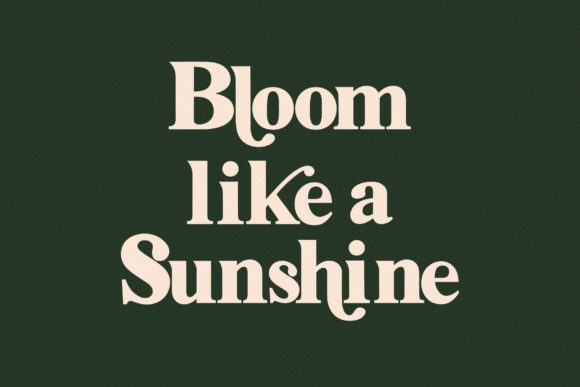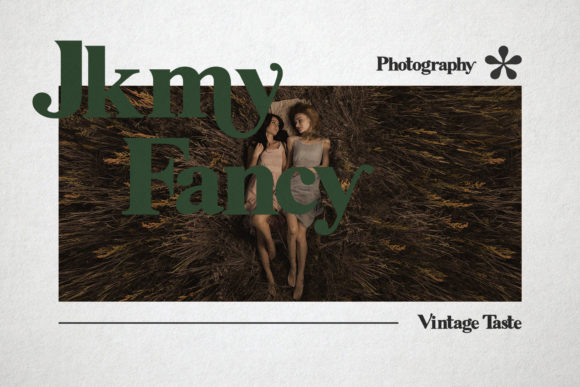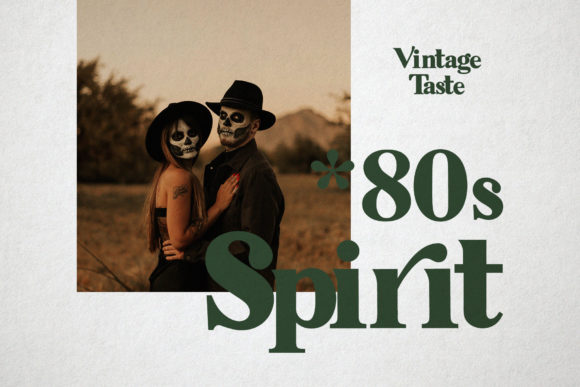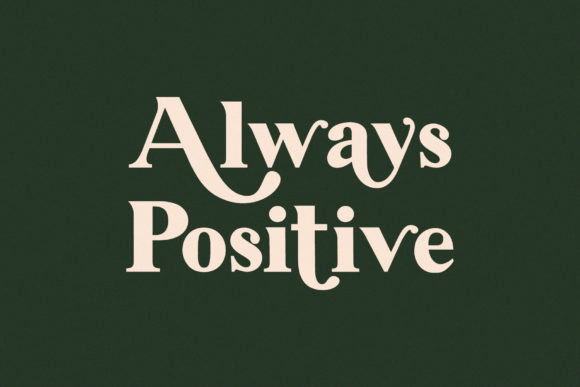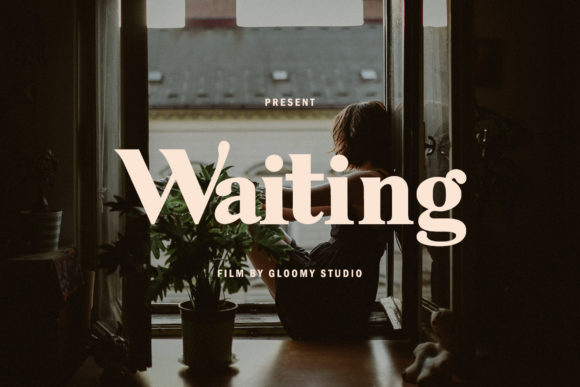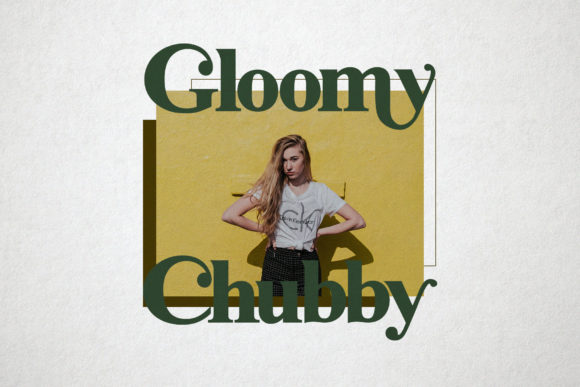
Gloomy Font: Elevate Your Designs with a Touch of Elegance
In the world of design, typography plays a crucial role in conveying the tone and aesthetic of a project. For designers and crafters seeking a font that exudes elegance and simplicity, the Gloomy Font is an excellent choice. This beautiful serif font is perfect for a wide range of applications, from branding and product packaging to invitations, quotes, and more.
The Versatility of Gloomy Font
One of the standout features of the Gloomy Font is its versatility. Its classic serif design makes it suitable for various design projects, including:
- Branding: Establish a sophisticated brand identity with Gloomy Font, perfect for luxury brands, fashion labels, or high-end products.
- Product Packaging: Add a touch of elegance to your product packaging, making it stand out on store shelves.
- Invitations: Create beautiful, formal invitations for weddings, galas, or other special events.
- Quotes: Design inspiring quote posters, social media graphics, or printables that showcase your favorite quotes.
- T-shirts and Apparel: Create stylish and sophisticated designs for t-shirts, hoodies, or other apparel.
- Labels and Posters: Use Gloomy Font for labels, posters, or flyers that require a professional and elegant look.
- Logos: Design stunning logos for businesses, products, or services that require a classic and timeless look.
Why Choose Gloomy Font?
So, what makes Gloomy Font an excellent choice for designers and crafters? Here are a few reasons:
- Simple yet Elegant: Gloomy Font boasts a simple, yet elegant design that adds a touch of sophistication to any project.
- High-Quality Design: The font is carefully crafted to ensure high-quality rendering, even at small sizes.
- Easy to Read: The serif design of Gloomy Font makes it easy to read, even for extended periods.
- Flexible: Use Gloomy Font for both digital and print projects, from social media graphics to business cards.
Tips for Using Gloomy Font
| Font Name | Gloomy Font |
| Author | The1stWinner |